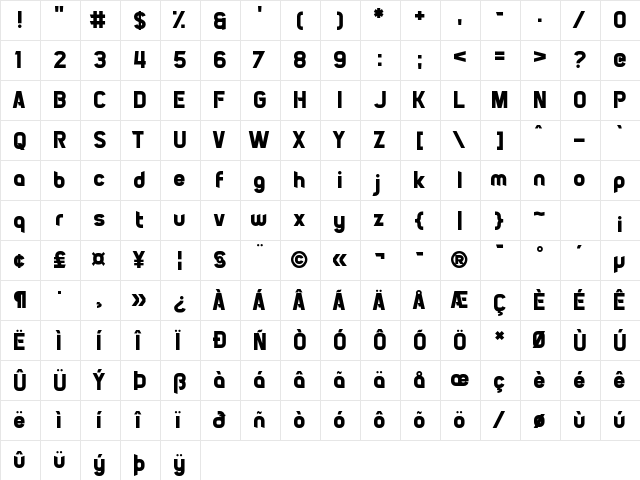
Pirates of Cydonia Regular
| Designer | NAL |
Design Context for Pirates of Cydonia Typeface
Pirates of Cydonia takes a measured approach to typography — its balanced proportions and neutral character make it a reliable workhorse for both digital and print work.